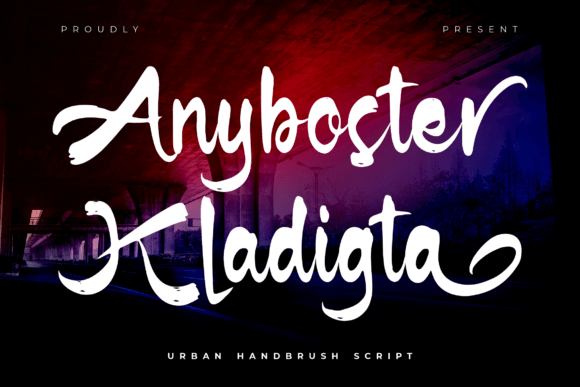
Introducing Anyboster Kladigta – the urban script font that will leave you spellbound! Unleash your creativity with this mesmerizing script font, meticulously crafted by Glorytype Studio. Anyboster Kladigta is more than just a font; it's an expression of your unique style and passion. Dive into a world of limitless possibilities, where your designs come alive with an irresistible charm that captivates every eye.
Picture this: your logo, adorned with Anyboster Kladigta's elegant strokes and vibrant personality. The perfect blend of boldness and grace, it commands attention and leaves a lasting impression. Whether you're designing for fashion brands, lifestyle products, or striking posters, Anyboster Kladigta effortlessly elevates your designs to new heights.
Step into the realm of branding projects and discover the magic of Anyboster Kladigta. Its versatile nature transforms ordinary designs into extraordinary experiences. Create stunning packaging that whispers elegance, or design homeware products that exude an air of sophistication. Your projects will radiate a unique charm that sets them apart from the rest, thanks to Anyboster Kladigta's captivating allure.
Explore the world of quotes and posters, where Anyboster Kladigta's enchanting curves dance across the page. Its expressive strokes bring life to your words, evoking emotions and captivating readers. Design shopping bags that turn heads and create mugs that spark conversations. Every project becomes a canvas for your creativity, and Anyboster Kladigta is the brush that paints your vision into reality.